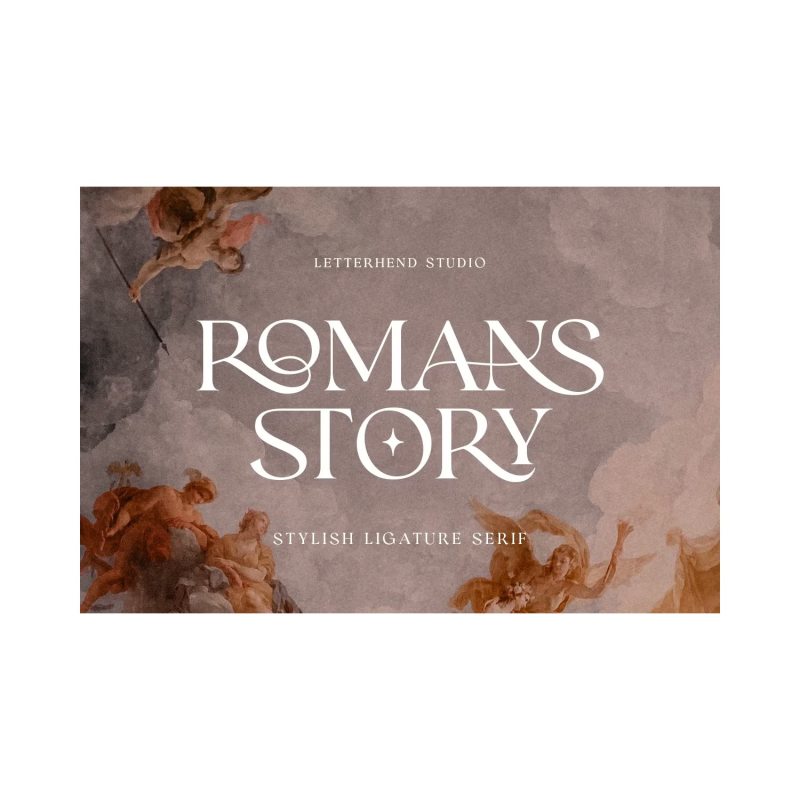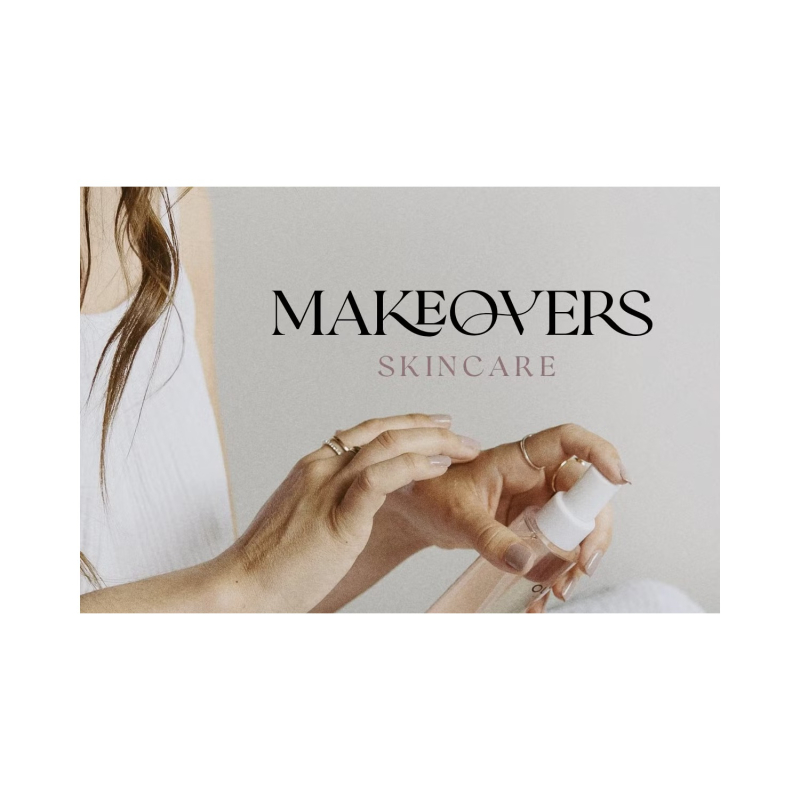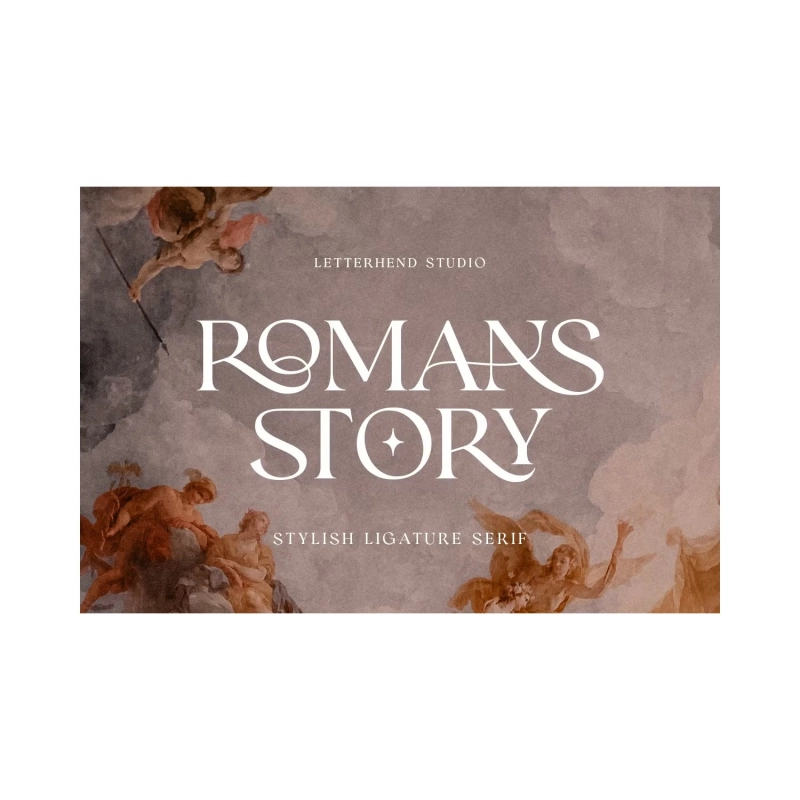
Romans Story - Ligature Serif Font
Romans Story is a sophisticated ligature serif from us. This typeface has been made carefully to make sure its premium quality and luxury feel. The ligatures makes this typeface unique and stands out rather than the regular serif font. Very suitable for logo, headline, tittle, and the other various formal forms such as invitations, labels, logos, magazines, books, greeting / wedding cards, packaging, fashion, make up, stationery, novels, labels or any type of advertising purpose.